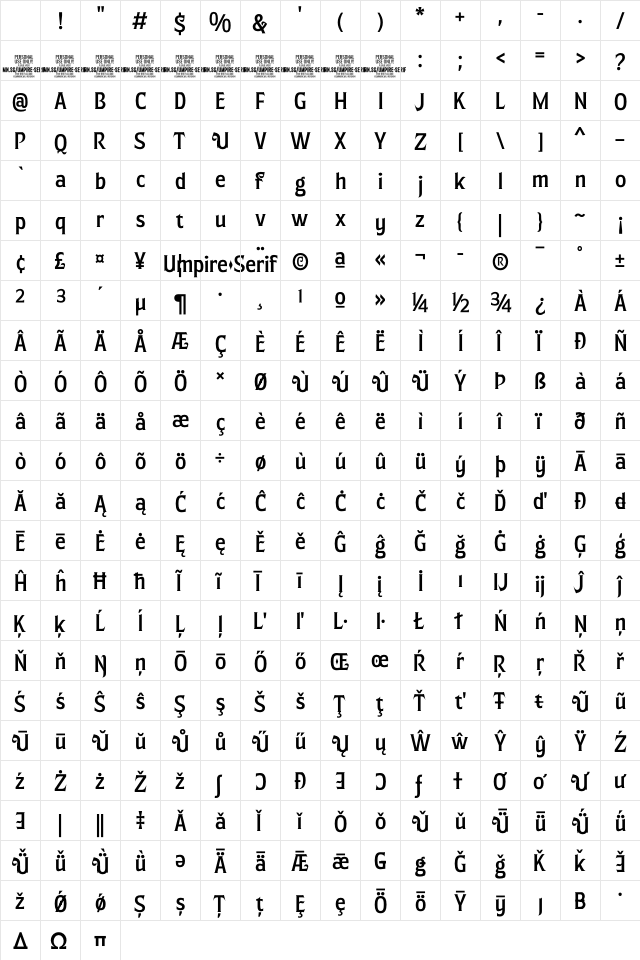
Complete Umpire Serif Alt PERSONAL USE Regular glyph index. Displaying only characters natively supported by Umpire Serif Alt PERSONAL USE Regular font.
Umpire Serif Alt PERSONAL USE carries the refined structure of traditional serif typography, with bracketed terminals and considered proportions that communicate credibility and craft.
Pro Tip: Use Umpire Serif Alt PERSONAL USE for editorial body copy and considered headline work. Pair with a neutral sans for UI elements or captions to create a classic hierarchy.